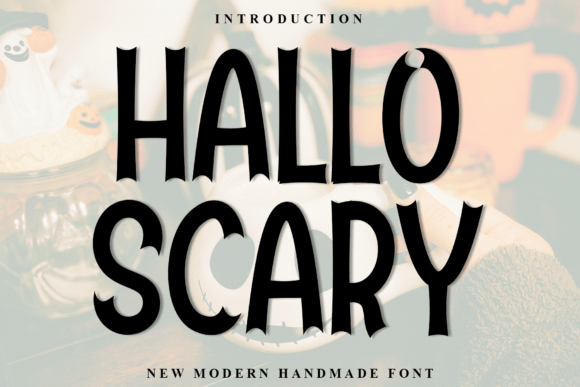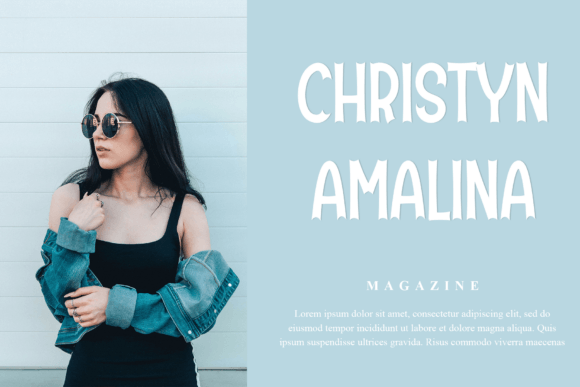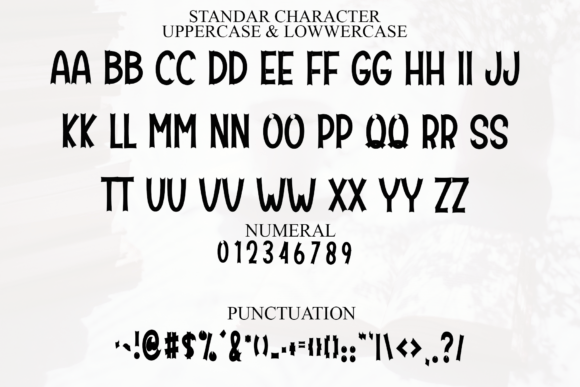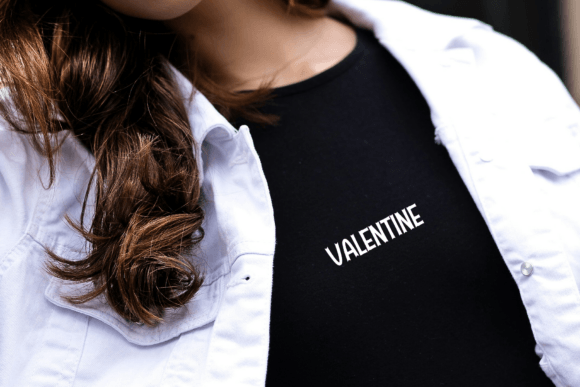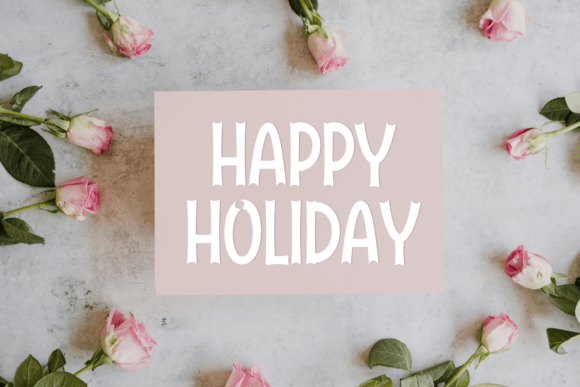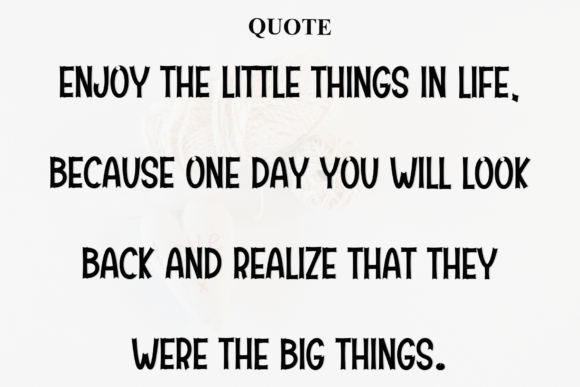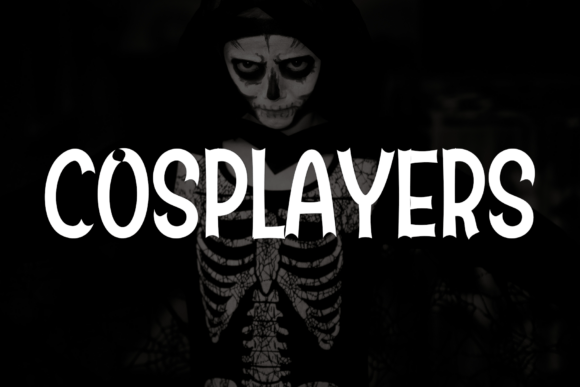
Unleash Your Creativity with the Spooky-Chic Hallo Scary Font
Have you ever stared at a blank canvas, wondering where to start? That’s where the magic happens – when our imagination takes over and brings our creative ideas to life. Whether you’re a seasoned designer or a hobbyist, the right font can make all the difference. That’s where the Hallo Scary Font comes in – a masterfully designed display font that’s sure to elevate your work to new heights.
This unique font is more than just a typographical choice – it’s a statement piece that adds a touch of sophistication and personality to your designs. With its bold, quirky charm, the Hallo Scary Font is perfect for designers looking to add a bit of whimsy to their work. Whether you’re working on a horror-themed project or just want to add some edge to your branding, this font is sure to deliver.
Hallo Scary Font Key Features
- Unique Characteristics: Hallo Scary Font features a unique, hand-drawn design with a spooky and playful aesthetic, perfect for creating attention-grabbing headlines and titles.
Hallos Scary Font Review
First off, I want to say that the designer of Hallo Scary Font has done an amazing job with the overall aesthetic. The design is eerie and playful at the same time, which is perfect for Halloween-themed projects. ✨ The font is well-crafted, with clean lines and a unique, hand-drawn feel that adds to its charm.
- The designer has paid close attention to detail, making sure that each letterform is carefully crafted to create a sense of unease and mystery.
- The font’s playfulness is balanced by a sense of sophistication, making it suitable for a wide range of projects, from children’s books to horror movies.
That being said, there are a few limitations to consider. ⚠️ The font may not be suitable for projects that require a lot of text, as the letterforms can be quite ornate and may not be legible at small sizes. Additionally, the font may not be compatible with all operating systems or software, which could cause issues with rendering.
Overall, I would highly recommend Hallo Scary Font for any project that requires a spooky and playful touch. The designer has done an excellent job creating a unique and engaging font that is sure to stand out. With a little creativity, this font can be used to create truly terrifying and unforgettable designs.
For best results, use “Hallo Scary Font” for titles, headings, and emphasis in designs that require a spooky or eerie atmosphere.
- Halloween-themed designs.
- Spooky or horror-themed posters.
- Dark fantasy or gothic-inspired designs.
Alternatives to Hallo Scary Font for Designers
Playfair Display is a luxurious, high-end serif font suitable for formal and elegant designs. It features a classic, vintage feel with intricate details. Use it for titles, headings, and special occasions. Compared to Hallo Scary Font, Playfair Display is more elegant and less edgy, making it suitable for upscale designs.
Rock Salt is a distressed, vintage-inspired font with a rugged feel. It’s ideal for designs that require a sense of history and nostalgia. Compared to Hallo Scary Font, Rock Salt is more worn and weathered, giving it a unique, vintage look. Use it for designs that require a vintage or retro feel.